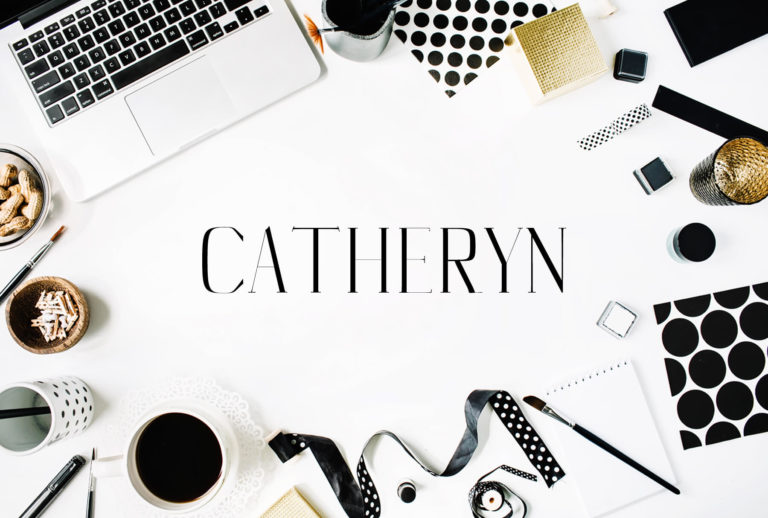
- Catheryn Serif Typeface
Catheryn Regular
Catheryn Thin
Catheryn Light
Catheryn Bold
Catheryn Serif Typeface is a clean 4 font family pack, It features unique and modern serif look and feel. Perfect for gorgeous logos, titles, web layouts and branding. It looks gorgeous in all caps with a wide-set spacing if you want to try a classy look, or beautiful on its own in capital and lowercase letters for something completely timeless.
- Font Weight: Regular, Light, Thin and Bold
Catheryn Font Features:
- Uppercase Multilingual Letters
- Lowercase Multilingual Letters
- Non English Characters ( Latin Supplement + Latin Extended A)